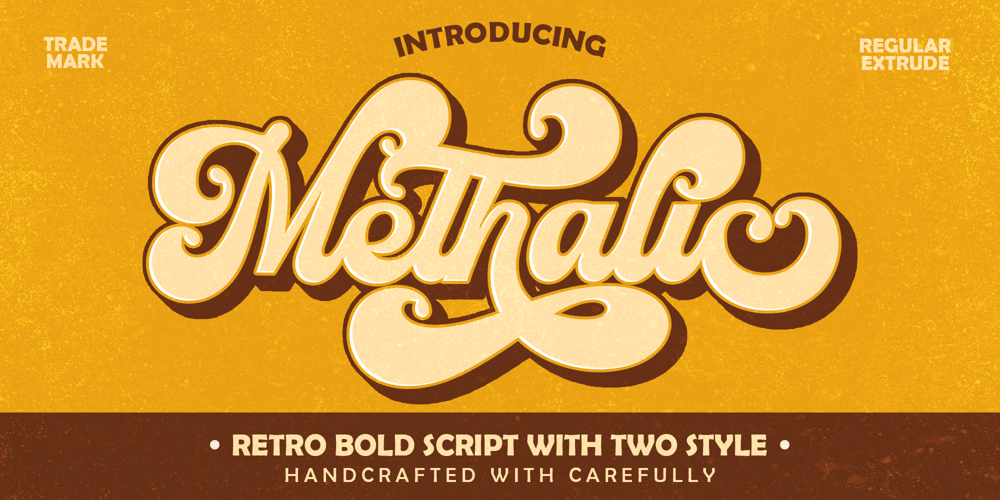
Methalic Script Font Family was designed by Rizki Andika and published by Letterfreshstudio. Methalic Script contains 2 styles and family package options. Methalic Script is a bold and groovy retro script font, inspired by the iconic typography of the late ’60s and ’70s. Its funky curves and playful flow capture the vibrant energy of vintage design, making it perfect for projects that celebrate nostalgia with a modern twist.This font comes with a built-in shadow style, eliminating the need for extra effort to create an extrude effect. With Methalic Script, you can achieve a bold, dimensional look instantly, saving you time and effort in your design process.Perfect for posters, logos, album covers, or any project needing retro flair, Methalic Script adds personality and charm to every design.Perfect for posters, logos, album covers, or any project needing retro flair, Methalic Script adds personality and charm to every design.